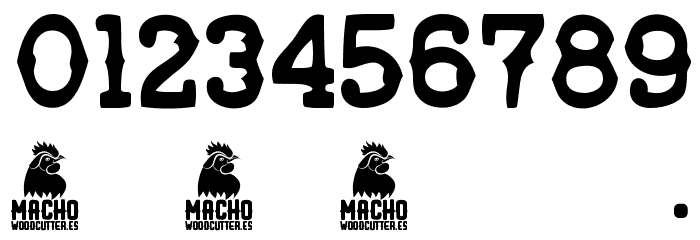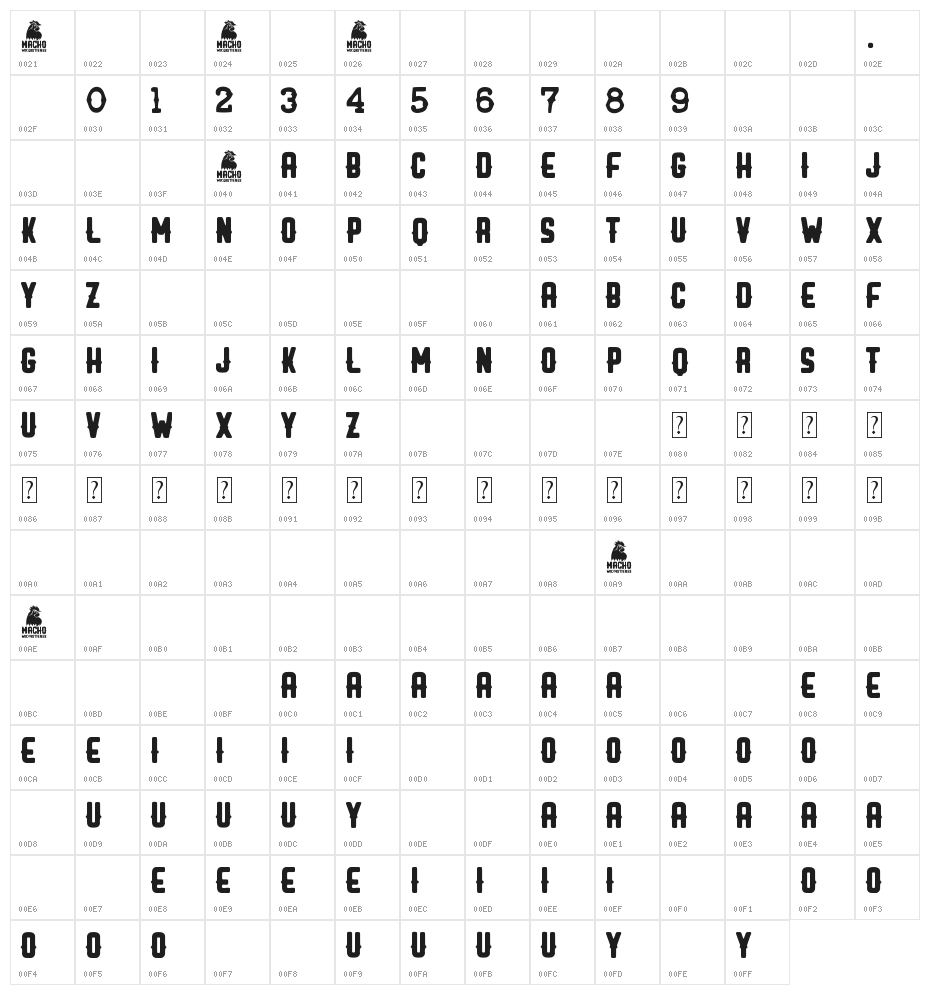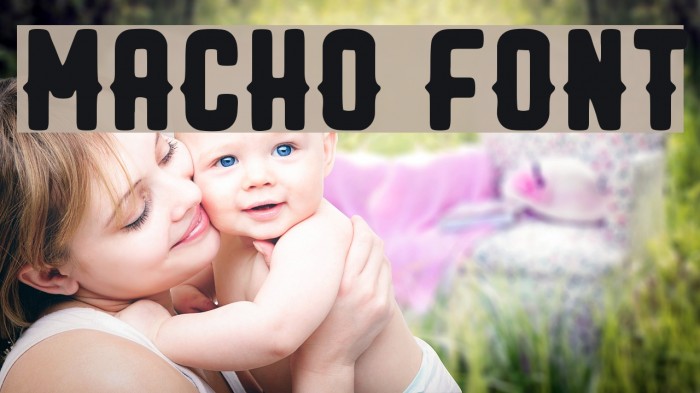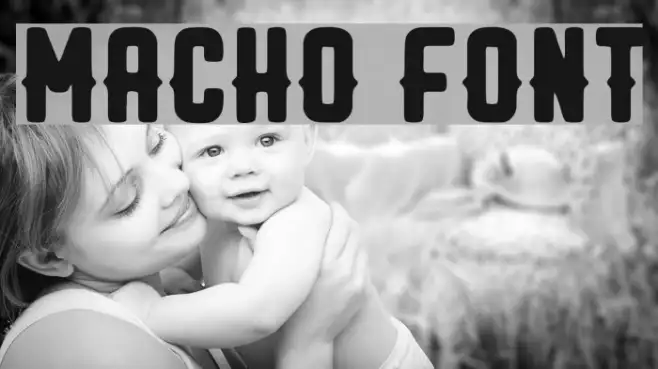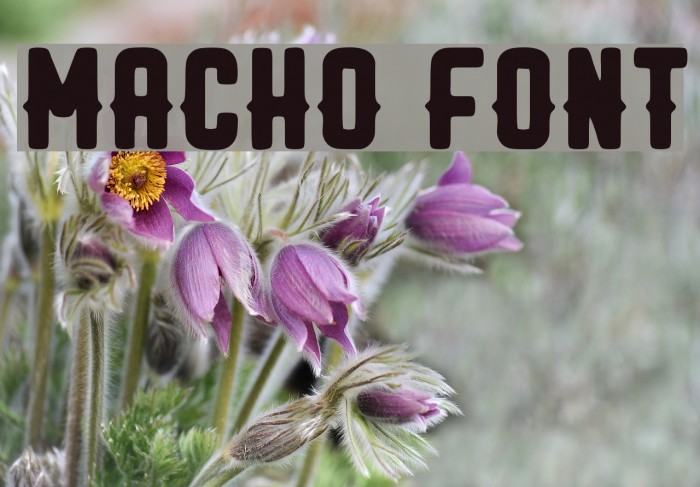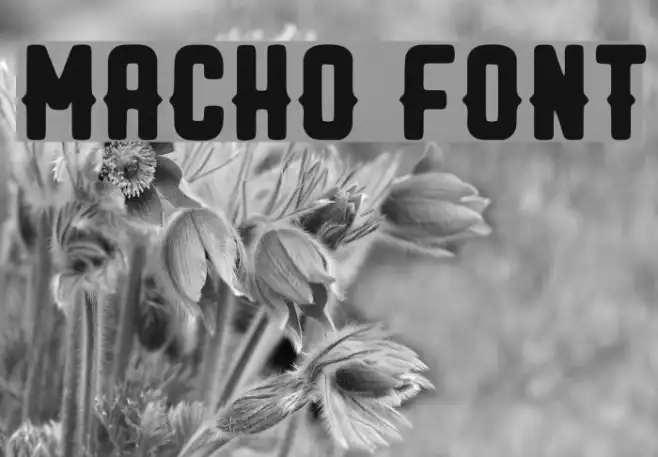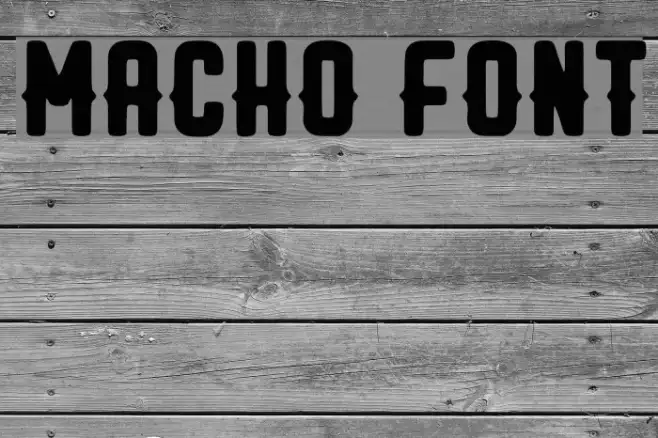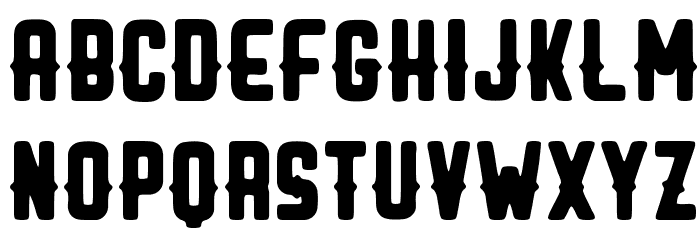
MACHO Font
MACHO Description
This bold and robust font features thick, blocky characters with a strong presence. The uppercase letters are uniform in height, with a slight curvature that adds a touch of softness to the otherwise sturdy design. The lowercase letters maintain the same boldness, offering a cohesive look across different text sizes. Numbers are equally bold, ensuring readability and impact. The font's unique style is further emphasized by its decorative elements, making it ideal for attention-grabbing headlines and logos. Its design is reminiscent of vintage woodcut styles, providing a rustic yet modern appeal.
| Proposed Projects | Ideal for branding, poster design, merchandise, and any project requiring a strong, vintage aesthetic. |